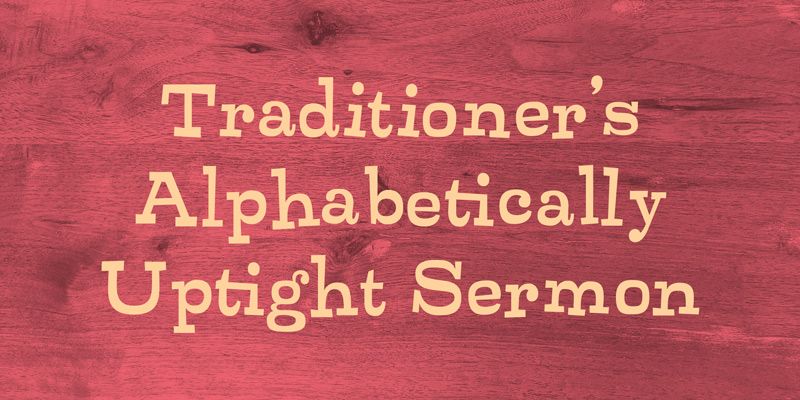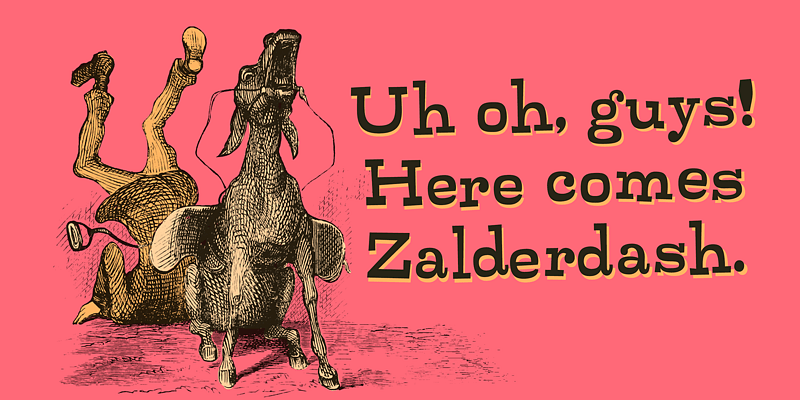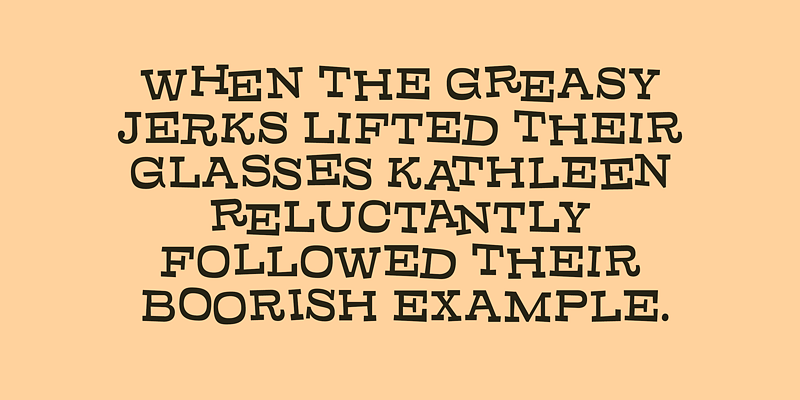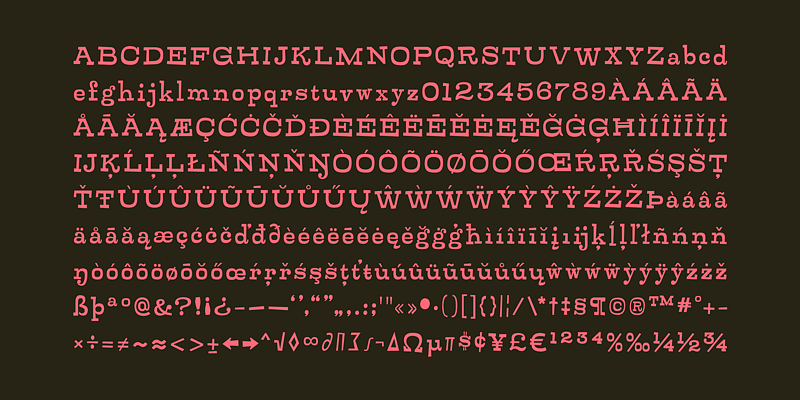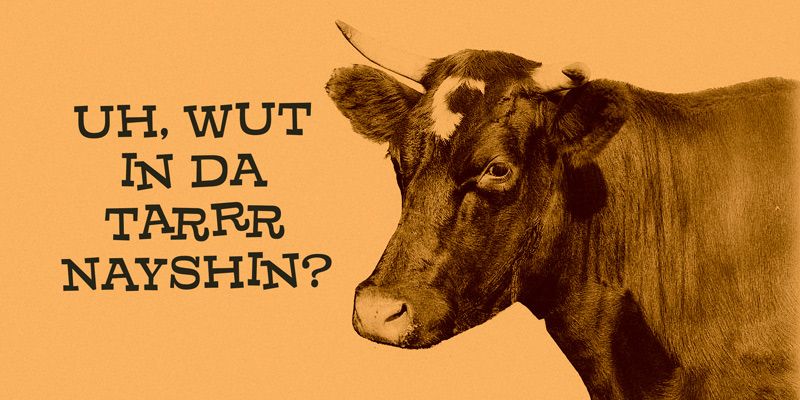
Zalderdash gives the Clarendon slab serif a campy, bouncing temperament. Its chunky letters jostle against one another, and automatic character substitutions vary combinations as the text changes. That keeps repeated headlines from looking too mechanically uniform while preserving a recognizable family character. Amusement-park attractions, party-game announcements, novelty-food packages, and children’s event titles can all use lettering that sounds exuberant before anyone reads the words. It is particularly good for a system with many changing names, where each new phrase can make a slightly different shape.